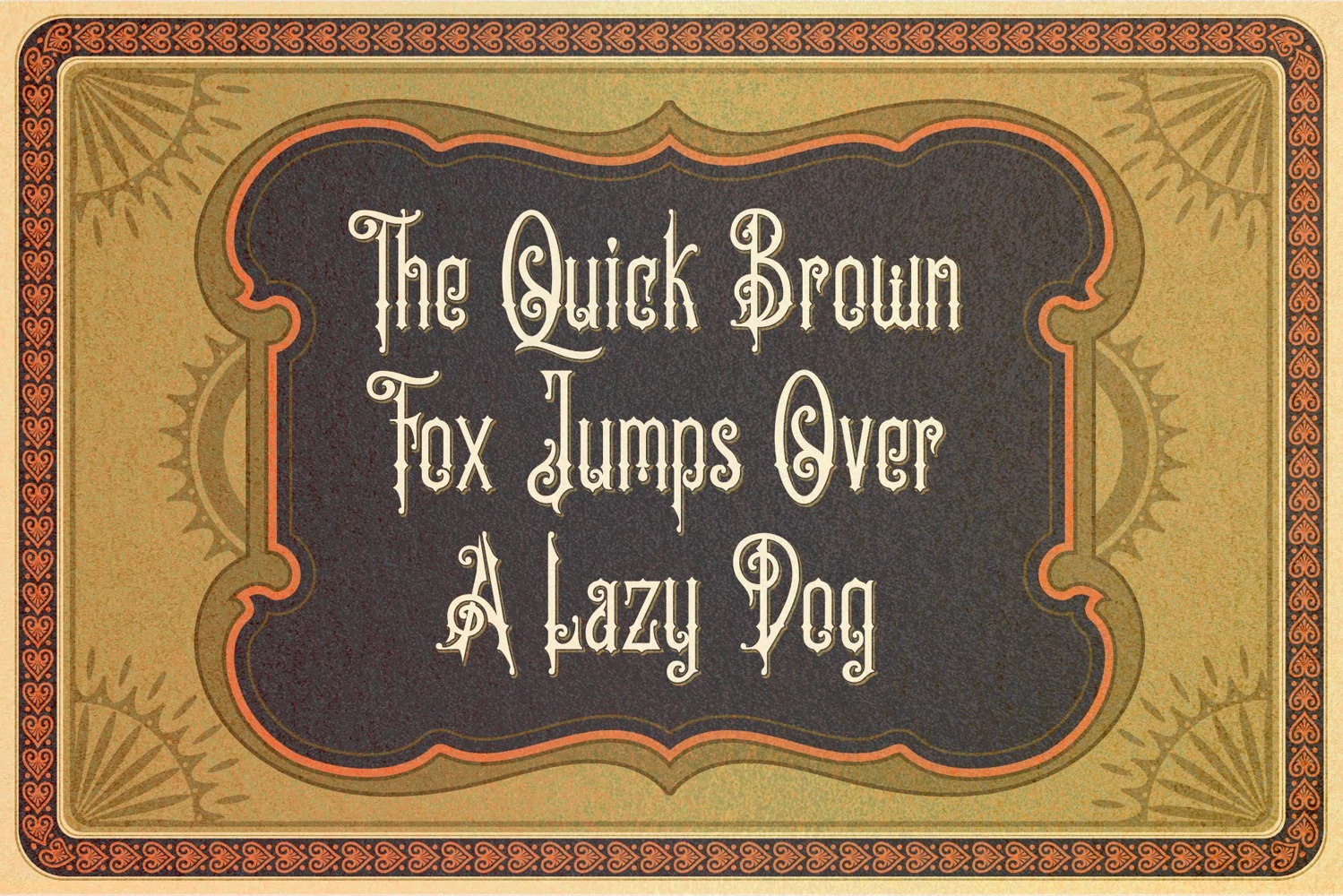
Old Finlander
is inspired from victorian style, i create with detail inserting
ornament elements into letters very suitable as to make a design choice
for books cover, magazines, packaging, branding , t-shirt design,
poster, signage and more other creative project.